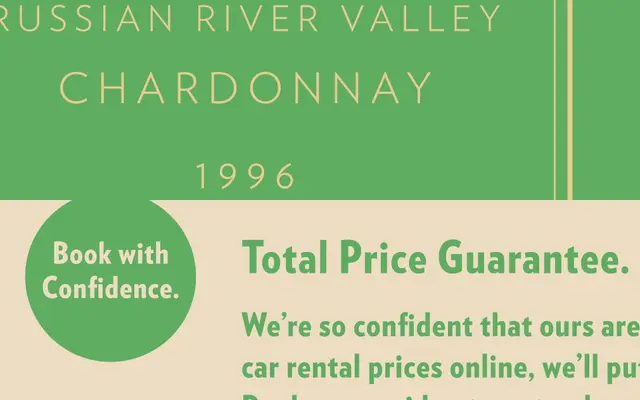
Verlag
Hoefler & Co · Jonathan Hoefler, Tobias Frere-Jones · 2006
A geometric sans from Hoefler & Co commissioned by the Guggenheim, drawn from 1930s American modernism rather than European Bauhaus geometry.
A geometric sans by Jonathan Hoefler and Tobias Frere-Jones, commissioned by the Guggenheim Museum and rooted in the lettering Frank Lloyd Wright applied to the building's facade. Five weights from Light to Black with matching italics, plus Compressed and Condensed widths for tighter measures. Sits in cultural institutions, civic identity and editorial systems that want geometric clarity with an American rather than European accent.
H&Co classify Verlag as a geometric sans rooted in the lettering of the Guggenheim Museum, drawing on 1930s American modernism rather than the German Bauhaus geometric tradition.